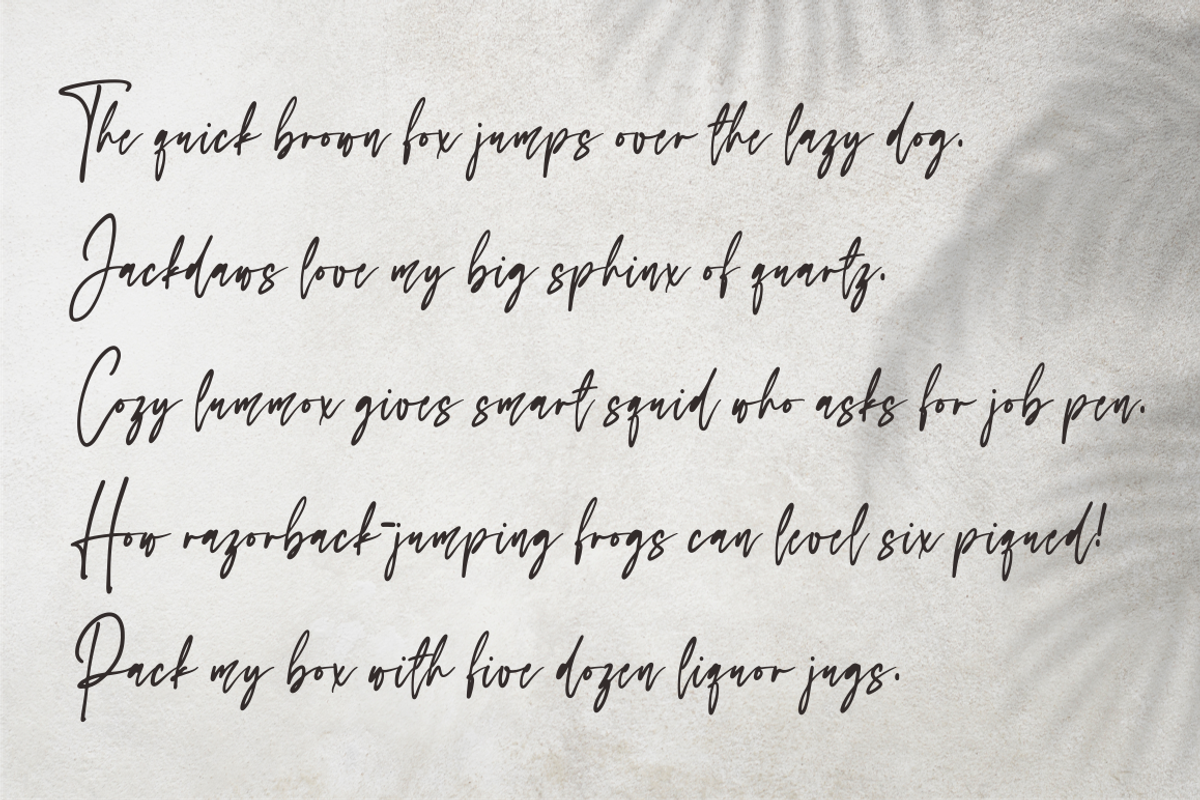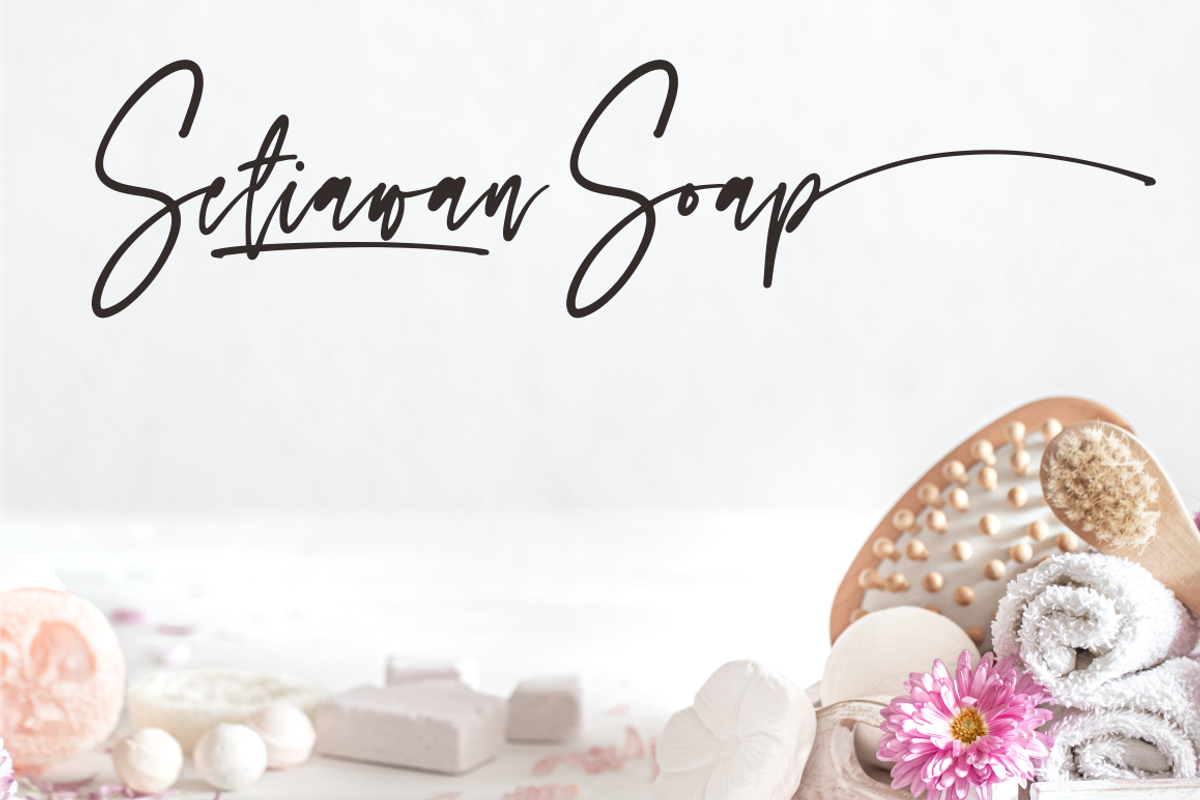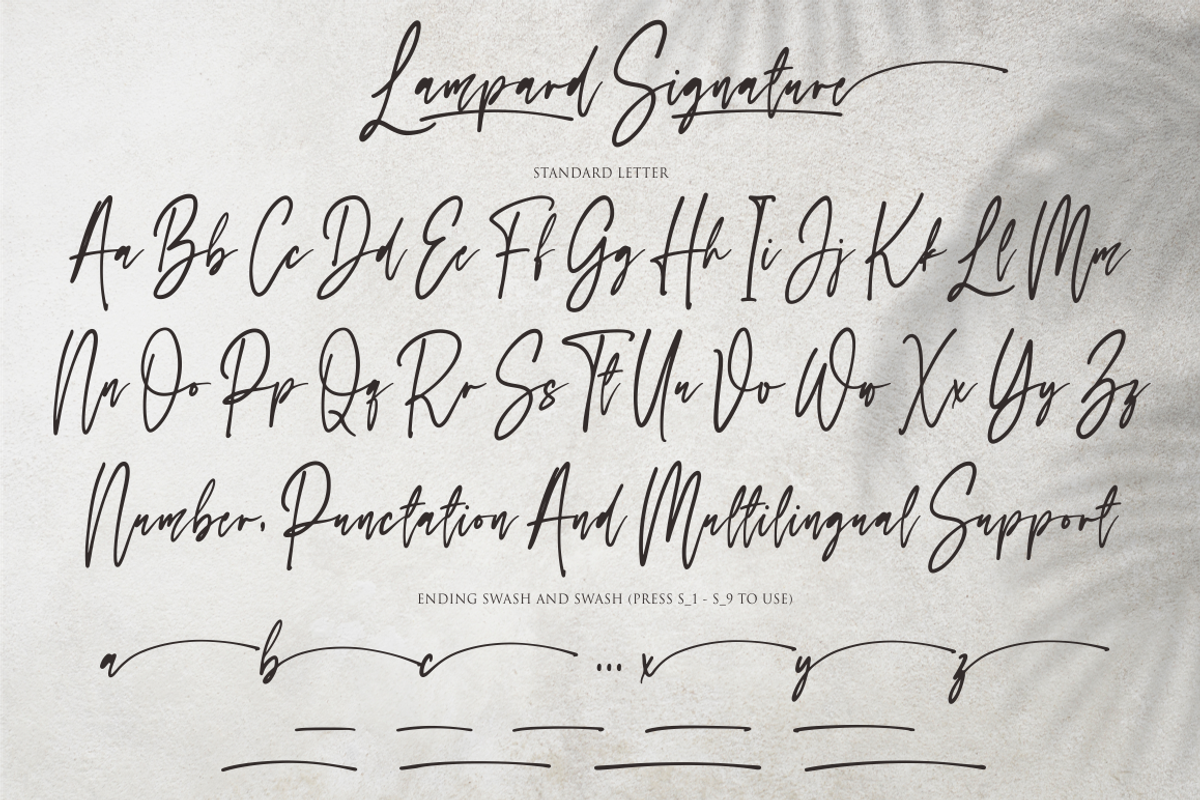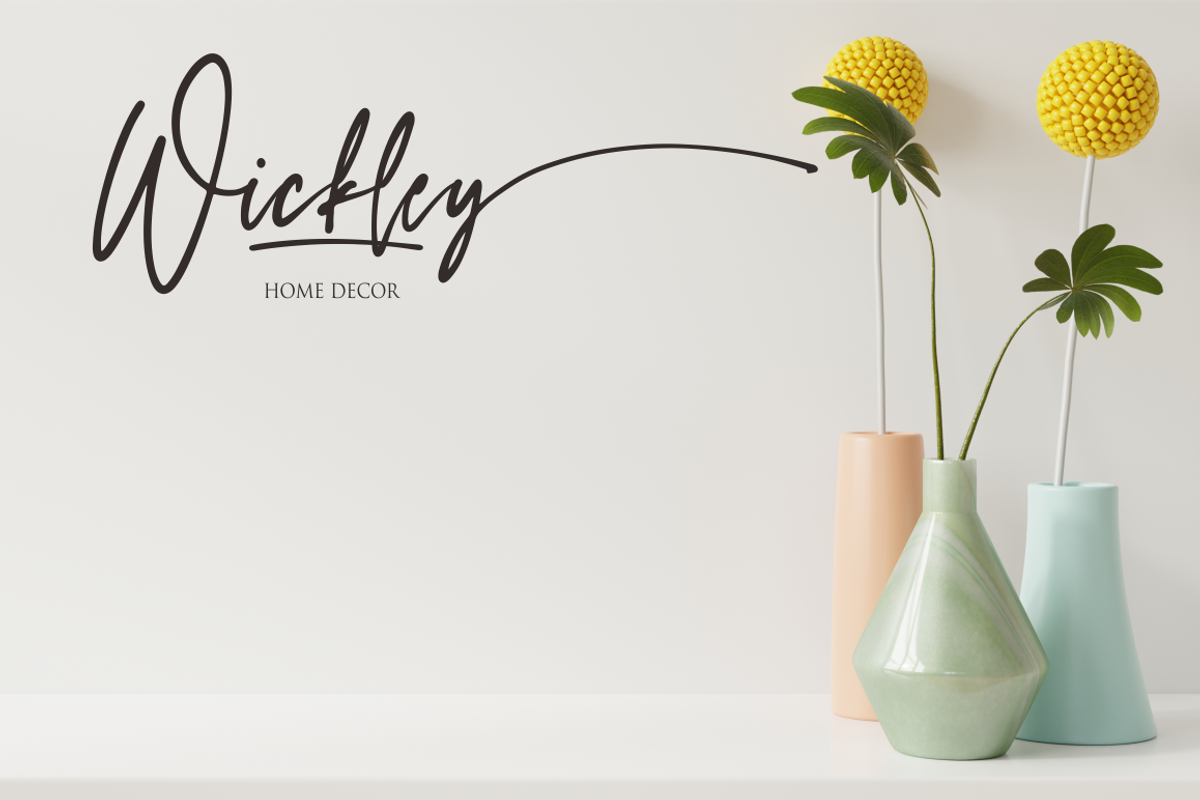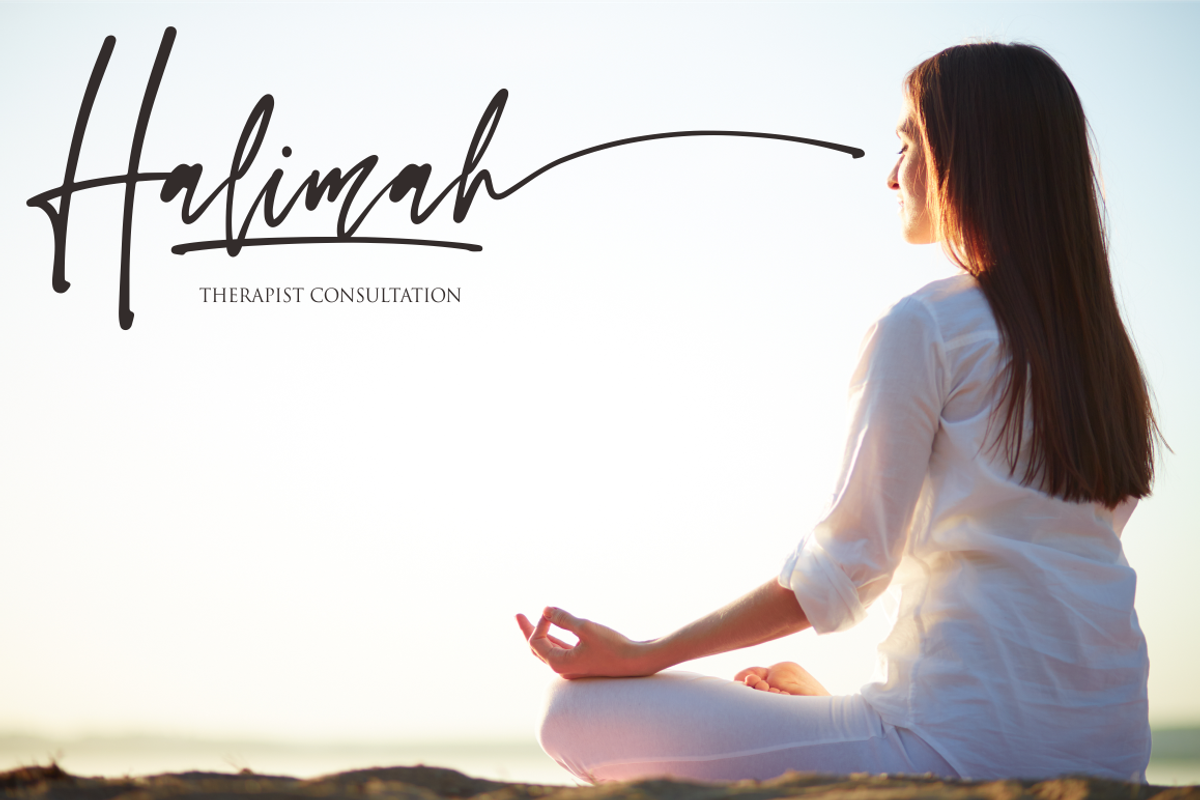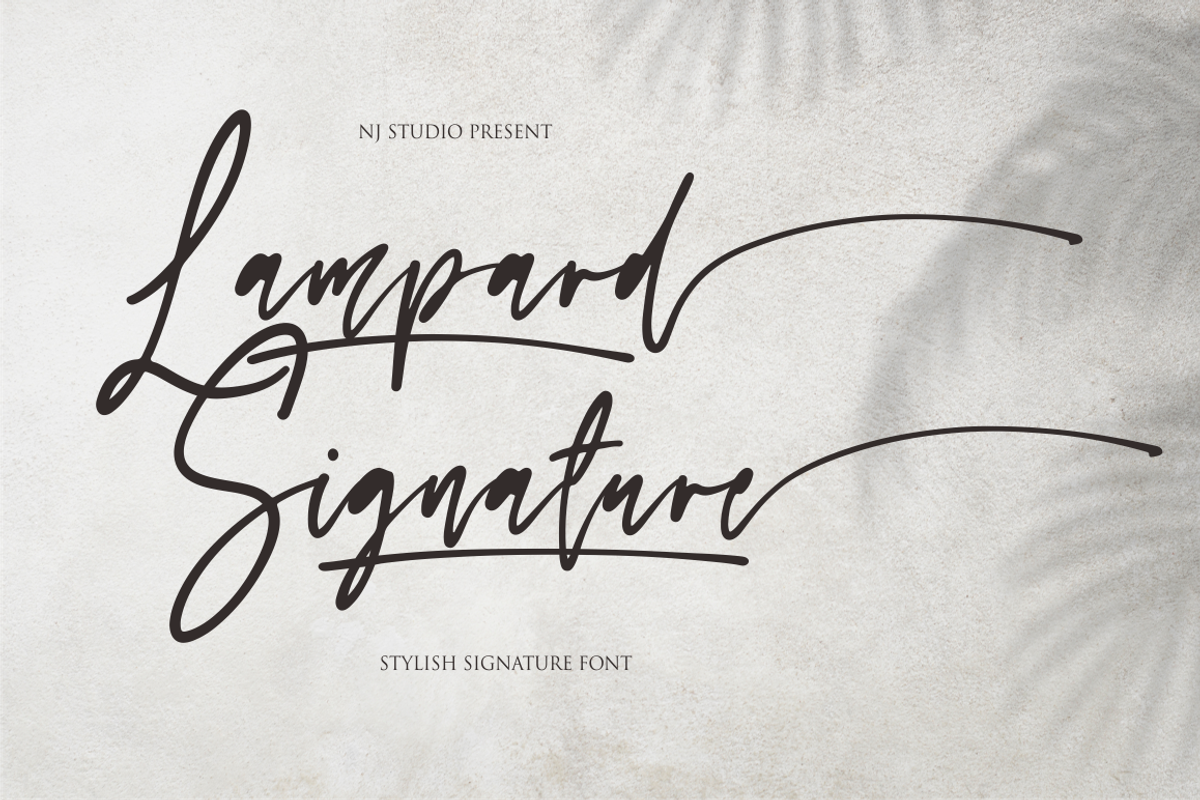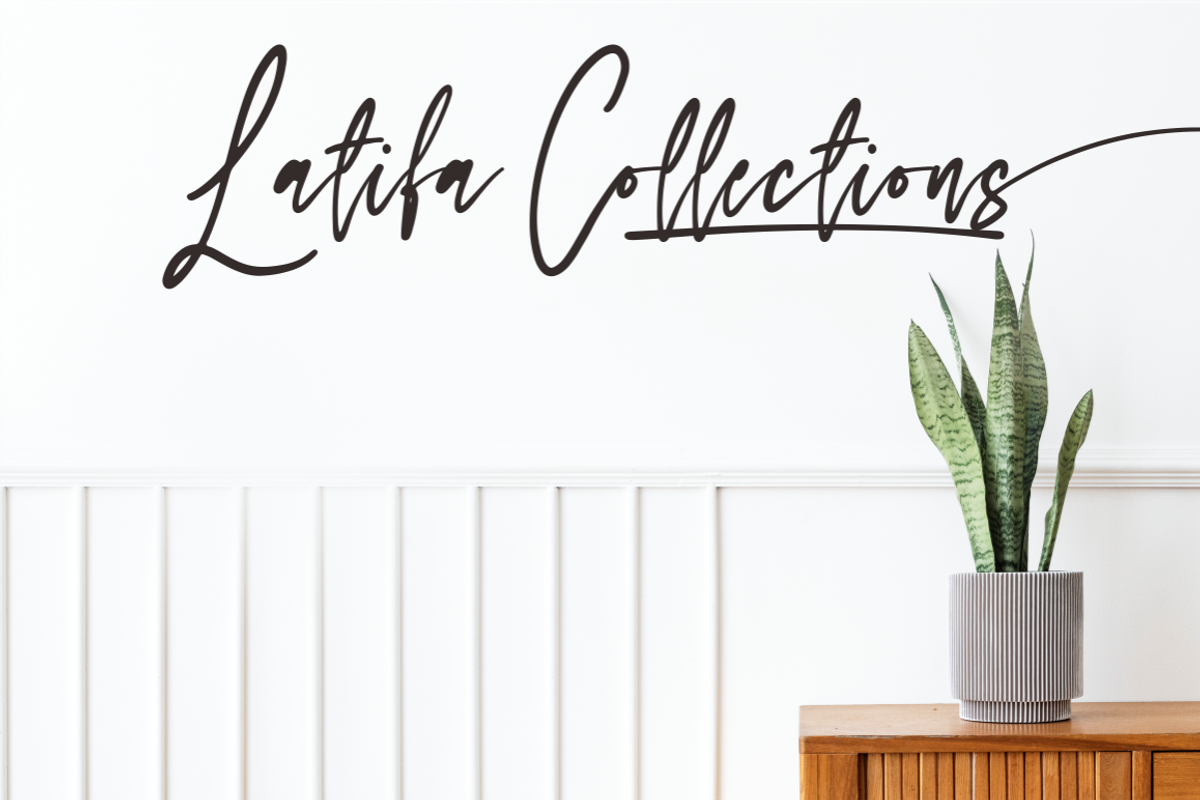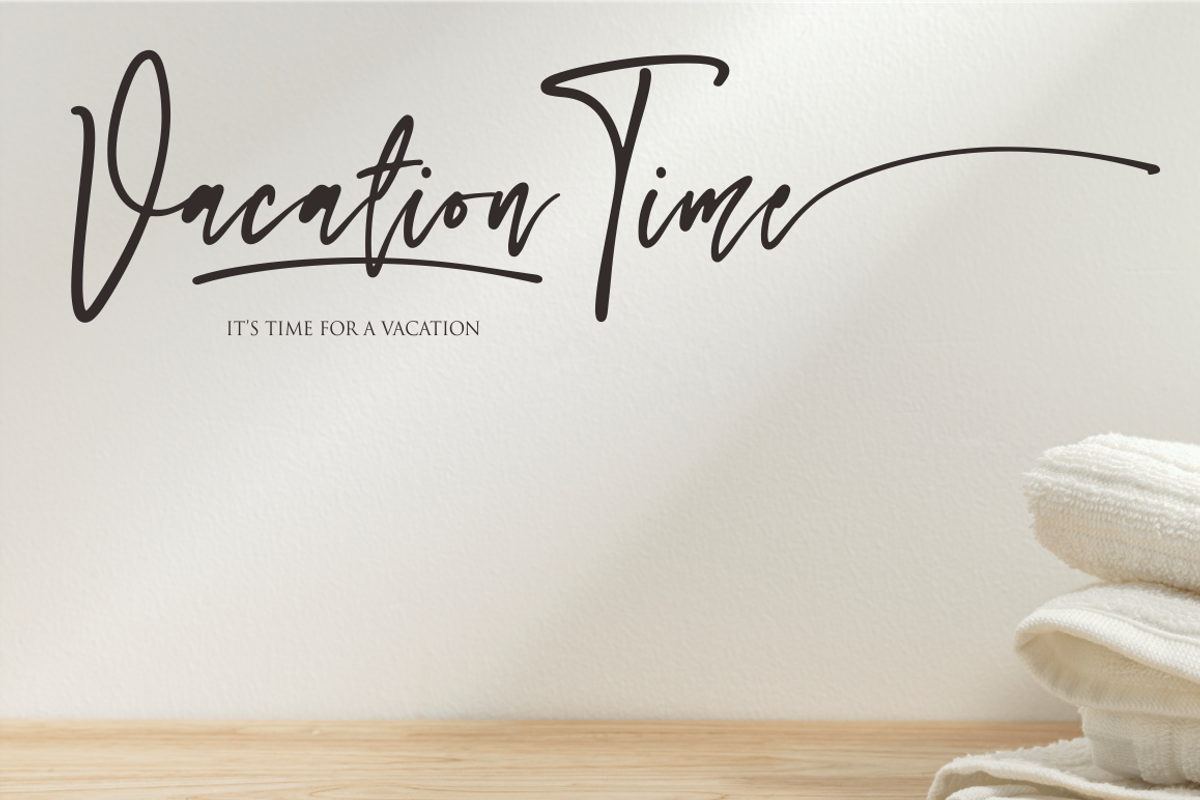
Lampard Signature
Lampard Signature a stylish signature font 9 swash and ending swash. It features ligatures characters that will take your projects to the next level!
This font is PUA code which means you can easily access all the glyphs that are full of swash! It also features many special features including glyphs. font designs that are made for various vector designs, printing such as digital wedding blogs, online shops, social media, while printing can be used in the field of product clothing, accessories, bags, pins, logos, business cards, watermarks and many others ...
so it can make your product look swash and attractive, and also Multilingual support!!!